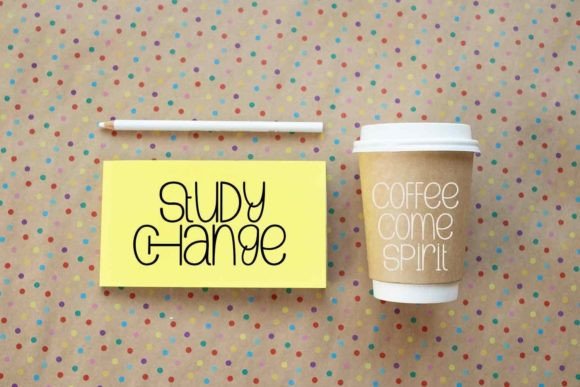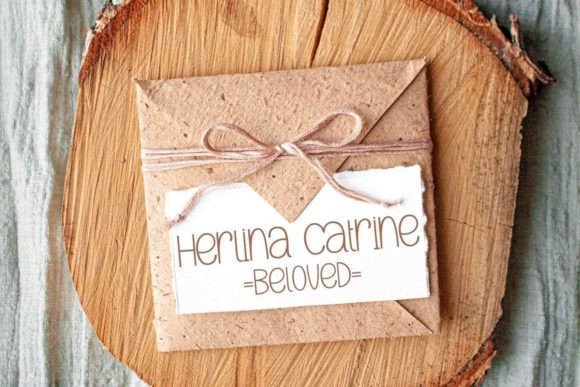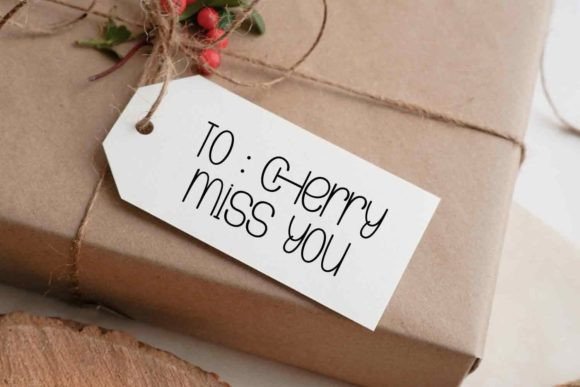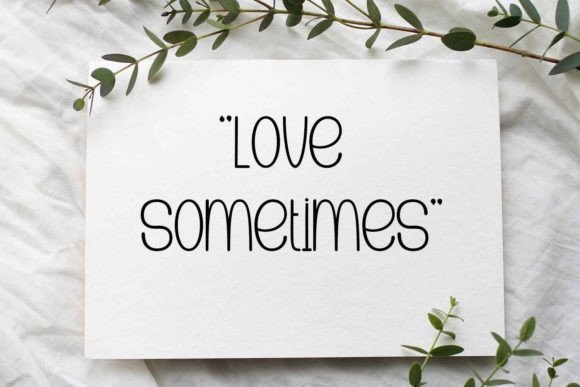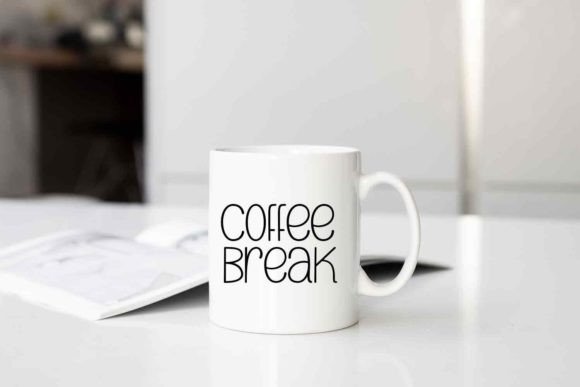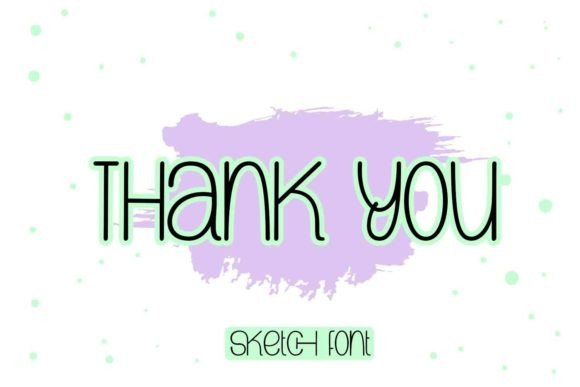
Crispy Cake Font: The Perfect Addition to Your Design Collection
Are you a designer or crafter looking for a unique and eye-catching font to elevate your projects? Look no further than Crispy Cake Font! This natural and simple display font is perfect for a wide range of products, from kids’ items to birthday cards, sticker crafts, books, labels, and more. In this article, we’ll explore the features and benefits of Crispy Cake Font and show you how to incorporate it into your designs.
What is Crispy Cake Font?
Crispy Cake Font is a display font designed to add a touch of whimsy and playfulness to your projects. Its natural and simple design makes it perfect for a variety of applications, from digital designs to print materials. The font’s unique style is reminiscent of handwritten scripts, but with a clean and crisp edge that sets it apart from other fonts.
Features of Crispy Cake Font
- Natural and Simple Design: Crispy Cake Font features a natural and simple design that makes it easy to read and visually appealing.
- Versatile: This font is perfect for a wide range of projects, from kids’ items to books, labels, and more.
- Playful and Whimsical: Crispy Cake Font adds a touch of playfulness and whimsy to your designs, making them stand out from the crowd.
Benefits of Using Crispy Cake Font
- Adds Visual Interest: Crispy Cake Font adds a touch of visual interest to your designs, making them more engaging and attention-grabbing.
- Perfect for Kids’ Projects: This font is perfect for kids’ projects, including birthday cards, sticker crafts, and kids’ books.
- Enhances Brand Identity: Crispy Cake Font can help enhance your brand identity by adding a unique and recognizable style to your designs.
- Easy to Pair with Other Fonts: This font is easy to pair with other fonts, making it perfect for use in a variety of design projects.
How to Use Crispy Cake Font
- Use it for Headings: Crispy Cake Font is perfect for use in headings and titles, where its playful and whimsical style can really shine.
- Add it to Your Kids’ Projects: This font is perfect for kids’ projects, including birthday cards, sticker crafts, and kids’ books.
- Use it for Labels and Tags: Crispy Cake Font is also great for use on labels and tags, where its clear and easy-to-read design can help your products stand out.
| Font Name | Crispy Cake Font |
| Author | jehansyah251 |
In conclusion, Crispy Cake Font is a natural and simple display font that’s perfect for a wide range of projects. Its playful and whimsical style makes it perfect for kids’ projects, while its clear and easy-to-read design makes it great for use in labels, tags, and other applications. Whether you’re a designer or crafter, Crispy Cake Font is a great addition to your font collection.